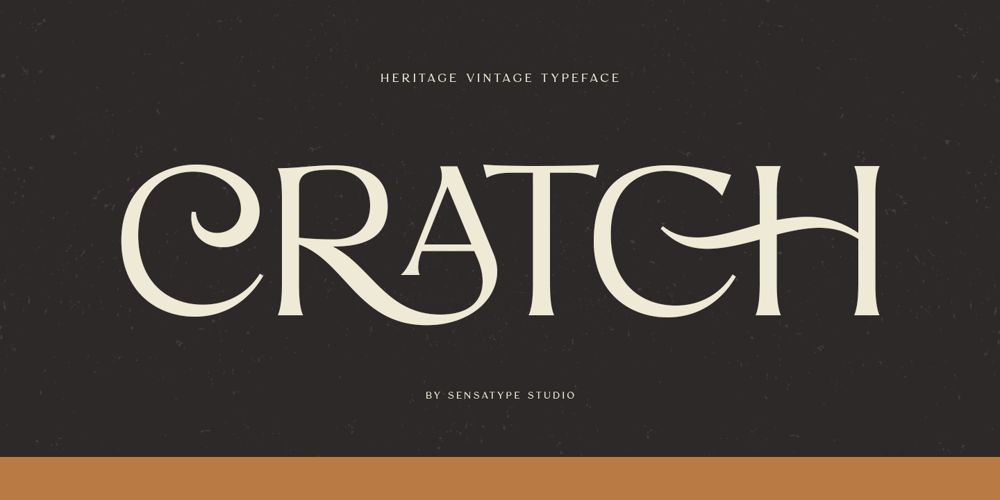
Cratch SS Font Family was designed by Zamroni Hamzah and published by Sensatype Studio. Cratch SS contains 4 styles and family package options. Cratch Vintage font is a well-balanced contemporary font with a fancy, unique, and versatile heritage vintage serif font that you can combine to get any variations and unique shapes easily just in seconds. It is a serif display font with moderate contrast that perfect for branding projects, logo, wedding designs, social media posts, advertisements, product packaging, product designs, label, photography, watermark, invitation, stationery, and any projects, it makes with a high level of legibility.What’s Included: 4 Styles Fonts Character set A-Z Uppercase & Lowercase Numerals & Punctuation Accented Characters (West Europe) Stylistic alternates Works on PC & Mac Recommended using Adobe Illustrator or Adobe Photoshop. Wish you enjoy our font. ๐